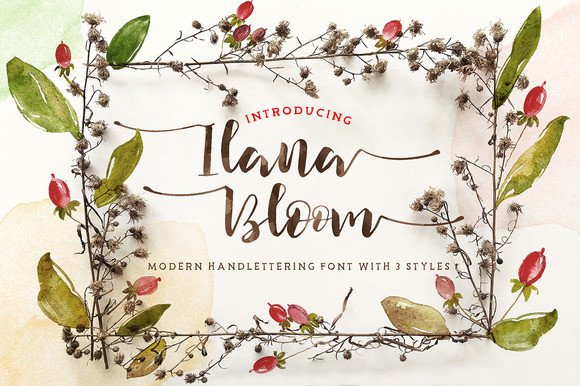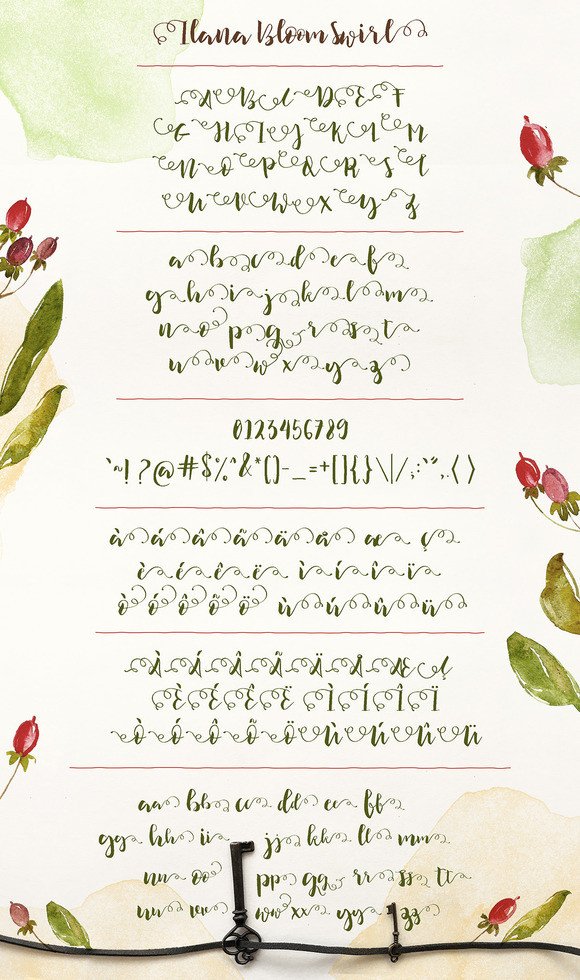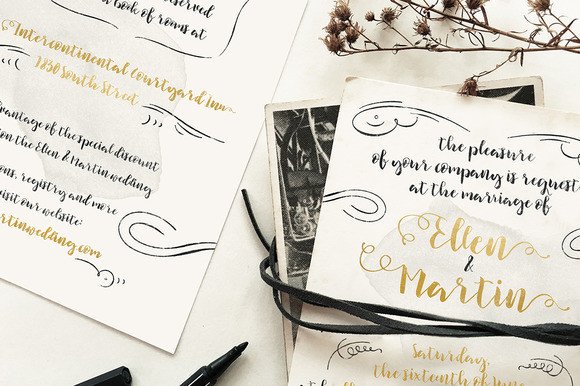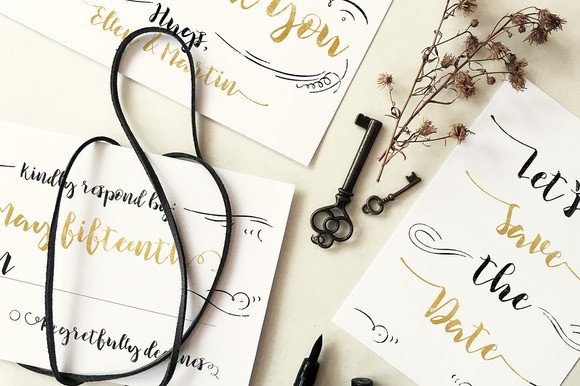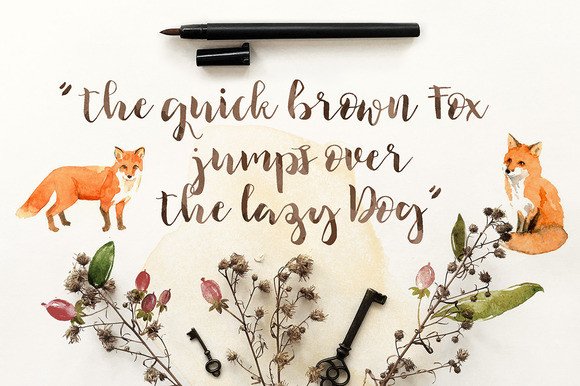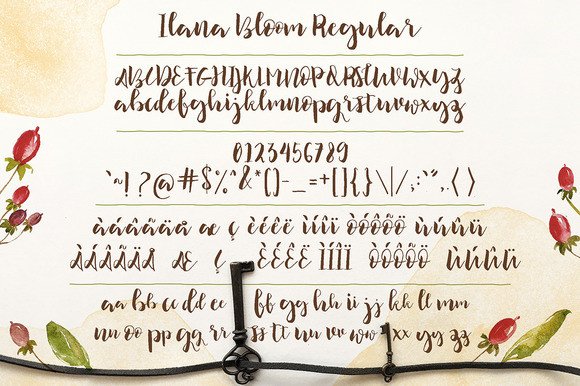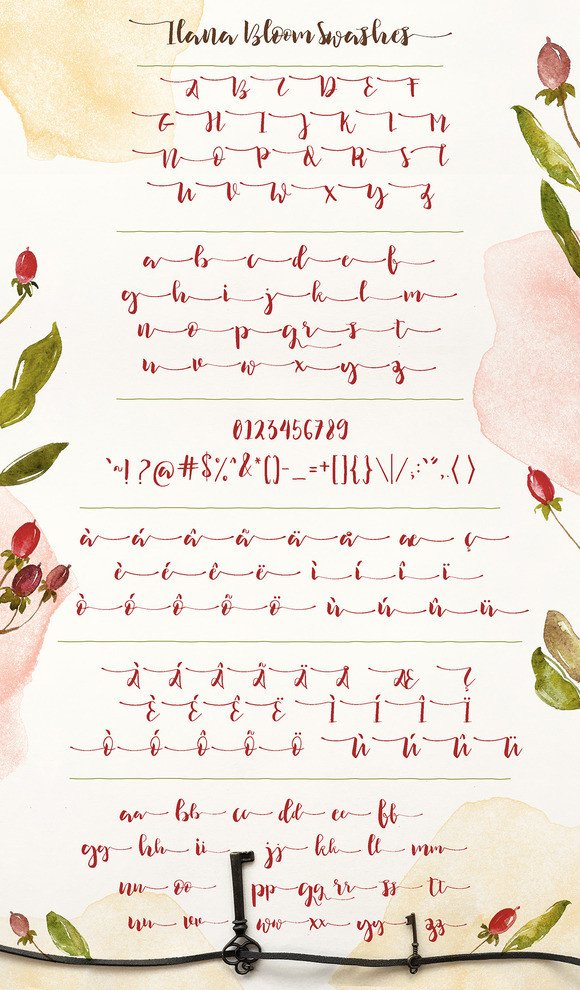
HomeScript FontsIlana Bloom Font Script Fonts Ilana Bloom Font FacebookXPinterestWhatsApp Ilana Bloom Font Poster 2 Ilana Bloom Font Poster 3 Ilana Bloom Font Poster 4 Ilana Bloom Font Poster 5 Ilana Bloom Font Poster 6 Ilana Bloom Font Poster 7 About Ilana Bloom Font Ilana Bloom is a feminine, modern hand lettering typeface that combines script, swashes and swirl. DOWNLOAD NOW People also explored Awesome Sauce Melissa Olivia Font Shoffie Ismarella Font Maestic Font Unconditionally Font Mailitta Font YWFT Wheatgrass Joyous Leo Font Sweet Snowy Font 365 0 TagsIlana Bloom Font Previous articleAmsterday FontNext articlePatrick Pie Font LEAVE A REPLY Cancel reply Comment: Please enter your comment! Name:* Please enter your name here Email:* You have entered an incorrect email address! Please enter your email address here Website: Save my name, email, and website in this browser for the next time I comment. Personal Use Free The Sweet Neo Personal Use Free Read more about this font Bebas Neue Font Personal Use Free Read more about this font Befindisa Personal Use Free Read more about this font Screengem Personal Use Free Read more about this font BLOG How to Install and Use Fonts on Windows, macOS, and Web Projects How to Install and Use Fonts on Windows, macOS, and Web Projects Fonts are a crucial part of design and branding. Whether you’re designing a... Top 7 Google Fonts Alternatives for Faster and Privacy-Friendly Web Design (2025) Using Fonts in Digital Marketing: Tips to Strengthen Your Brand Identity Best Fonts for YouTube Videos: Make Your Thumbnails Stand Out